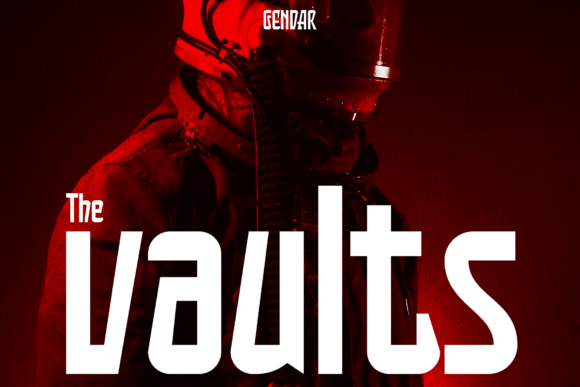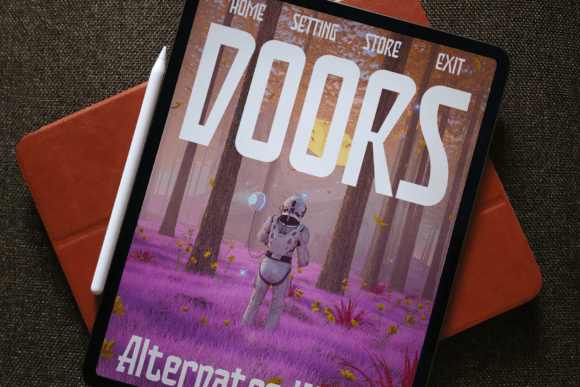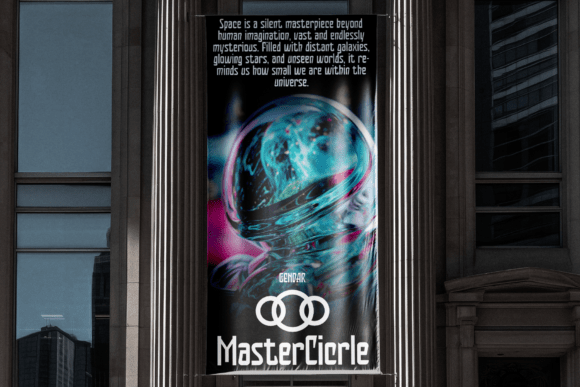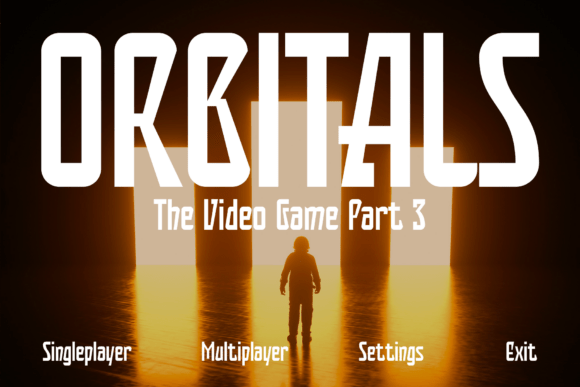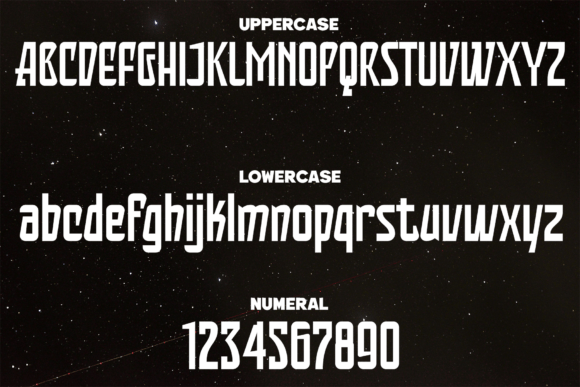
Gendar Font: The Ultimate Choice for Futuristic Designs
In the world of typography, fonts play a crucial role in conveying the tone and aesthetic of a design. For projects that require a futuristic and high-tech look, the Gendar font is an excellent choice. This condensed font features bold, sharp, and sci-fi inspired letterforms that are perfect for creating a strong visual impact.
What is Gendar Font?
Gendar is a futuristic condensed font designed with a strong vertical structure and a modern techno style. Its sleek and edgy letterforms make it an ideal choice for designers who want to create a bold and futuristic look. The font’s condensed style allows for efficient use of space, making it perfect for titles, headings, and short texts.
Key Features of Gendar Font
- Bold and Sharp Letterforms: Gendar’s letterforms are designed with a bold and sharp style, giving them a futuristic and high-tech look.
- Condensed Style: The font’s condensed style makes it perfect for use in titles, headings, and short texts where space is limited.
- Sci-Fi Inspired: Gendar’s letterforms are inspired by sci-fi themes, making it an excellent choice for space-themed branding, movie titles, and game UI.
- Strong Vertical Structure: The font’s strong vertical structure gives it a modern and techno look, making it perfect for futuristic designs.
Use Cases for Gendar Font
Gendar font is suitable for a wide range of design projects that require a futuristic and high-tech look. Some of the use cases include:
- Space-Themed Branding: Gendar font is perfect for creating logos, titles, and branding materials for space-themed projects.
- Movie Titles: The font’s bold and sharp letterforms make it an excellent choice for movie titles, especially those in the sci-fi genre.
- Game UI: Gendar font can be used to create futuristic and high-tech user interfaces for games, especially those with a sci-fi theme.
- Posters: The font’s condensed style and bold letterforms make it perfect for creating eye-catching posters for futuristic events or promotions.
- Esports Graphics: Gendar font can be used to create futuristic and high-tech graphics for esports teams, tournaments, and events.
- Digital Interfaces: The font’s modern and techno style make it suitable for use in digital interfaces, such as websites, apps, and software.
- Technology Logos: Gendar font can be used to create logos and branding materials for technology companies that want to convey a futuristic and high-tech image.
- Futuristic Visual Identity Projects: The font’s futuristic and sci-fi inspired letterforms make it perfect for use in visual identity projects that require a bold and high-tech look.
Why Choose Gendar Font?
Gendar font is an excellent choice for designers who want to create futuristic and high-tech designs. Here are some reasons why:
- Unique and Distinctive: Gendar font has a unique and distinctive style that sets it apart from other fonts.
- High-Quality Design: The font is designed with high-quality and precision, ensuring that it looks great in any design.
- Versatile: Gendar font can be used in a wide range of design projects, from posters and titles to digital interfaces and logos.
- Easy to Read: Despite its bold and condensed style, Gendar font is easy to read, making it perfect for use in titles and headings.
In conclusion, Gendar font is an excellent choice for designers who want to create futuristic and high-tech designs. Its bold and sharp letterforms, condensed style, and sci-fi inspired theme make it perfect for use in a wide range of design projects. Whether you’re creating a space-themed branding, movie title, or game UI, Gendar font is sure to make a strong visual impact.